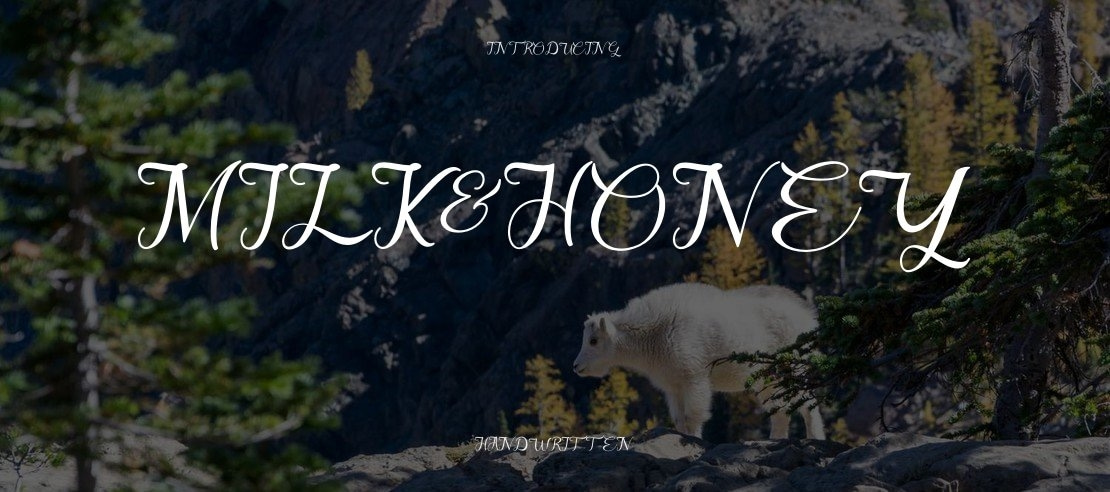
Hello everyone introduce my new font, Milk & Honey. Milk & Honey is a beautiful and elegant script font that is perfect for your needs such as packaging, photography, magazines, quotes, and beautiful writing, etc. . You will get OTF and TTF files from this Milk & Honey font. thank you and happy new year warm greetings, fikry if you want this font commercial use,please visit link below https://fontbundles.net/fikryal/181967-milk-and-honey-script-handwritten